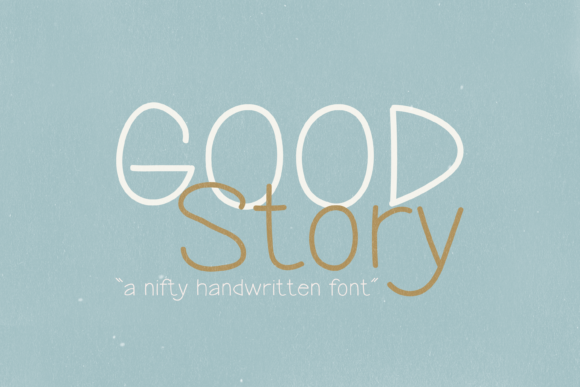
Journey into a realm of boundless creativity with Good Story Font, the enchanting script typeface that captivates the senses and awakens the imagination. Created by the ingenious minds at Sweet Vibes, this font is a masterpiece of artistry, meticulously crafted to elevate your designs with a touch of whimsy and charm.
Immerse yourself in the beauty of Good Story Font, a symphony of flowing lines and playful curves that dances across your screen like a delicate ballet. Its playful spirit and unpretentious elegance make it the perfect choice for chalkboard quotes, teaching materials, and any project that calls for a touch of warmth and personality.
Good Story Font is a visual symphony, a harmonious blend of classic and contemporary aesthetics. Its authentic look and feel add a personal and realistic touch to your creations, inviting your audience into a world of stories and heartfelt emotions. Each character is infused with a unique charm, capturing the essence of handwritten notes and evoking a sense of nostalgia and authenticity.
With Good Story Font, the possibilities are limitless. Let your imagination soar as you explore a vast array of creative applications. From eye-catching logos and captivating posters to heartfelt invitations and enchanting social media graphics, this font is your gateway to a world of visual storytelling. Unleash your creativity and weave a tapestry of words that resonate with your audience, leaving an indelible mark on their hearts and minds.
Embrace the magic of Good Story Font and embark on a creative odyssey that knows no bounds. Let your designs bloom with personality, charm, and a touch of whimsy. Discover the endless possibilities that await you as you unlock the enchanting world of Good Story Font.
The time is now to elevate your designs to new heights. Say goodbye to mundane typography and embrace the captivating allure of Good Story Font. Its versatility extends beyond the realm of chalkboard quotes and teaching materials, making it a font for the ages, capable of transforming any project into a visual masterpiece.